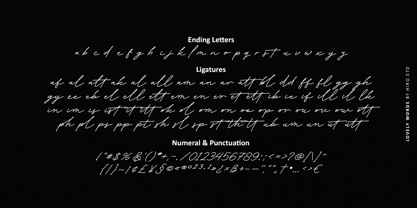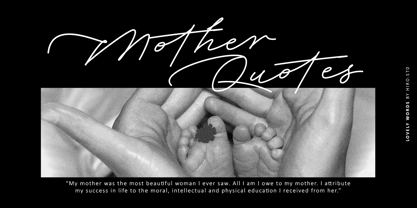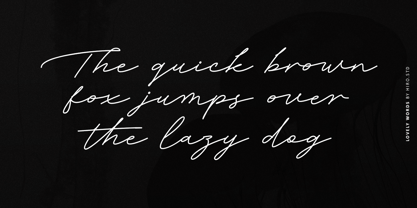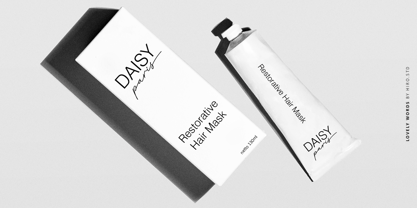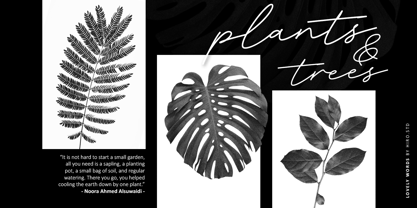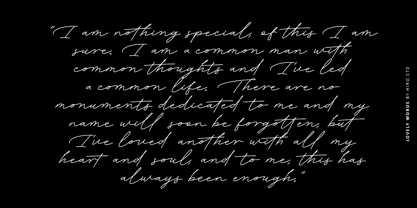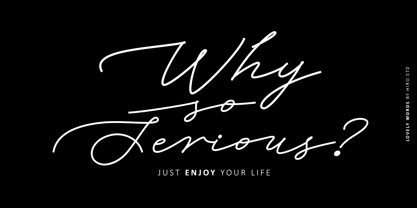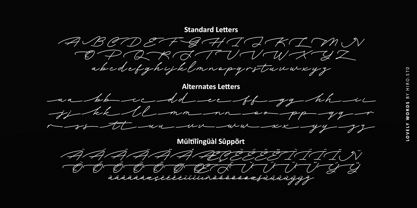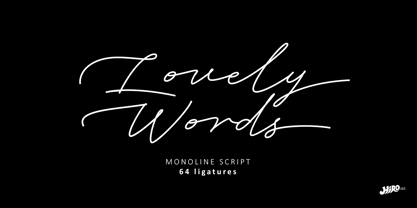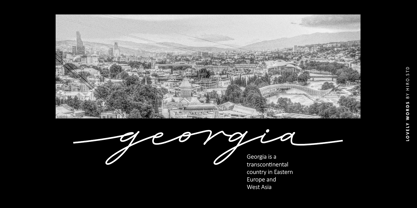
Lovely Words
by HIRO.std
The Lovely Words Font Family was designed by Chairul Ashar and published by HIRO.std. Lovely Words contains 1 styles. More about this family
Lovely Words is Handwritten Font.
This font describes about fashion, stylish, casual, classy, women, dynamic, easy to use and will bring a good harmony when the letters are connected and paired each other.
FEATURES
- Uppercase and lowercase letters
- 64 Opentype Ligatures
- Numbering and Punctuations
- Multilingual Support
USE
Lovely Words works great in any logotype, wedding invitation, merchandise, stationery, magazines, product packaging, quotes and any projects that need all about handwriting taste.
Designers: Chairul Ashar
Foundry: HIRO.std